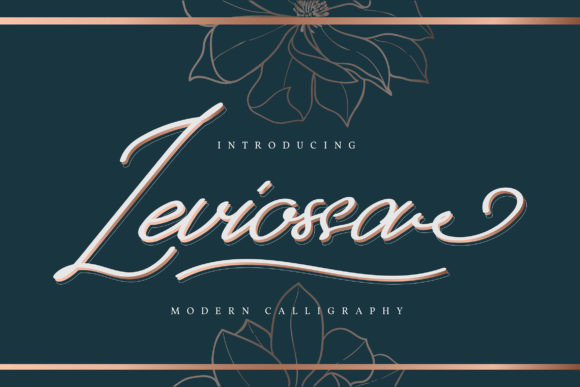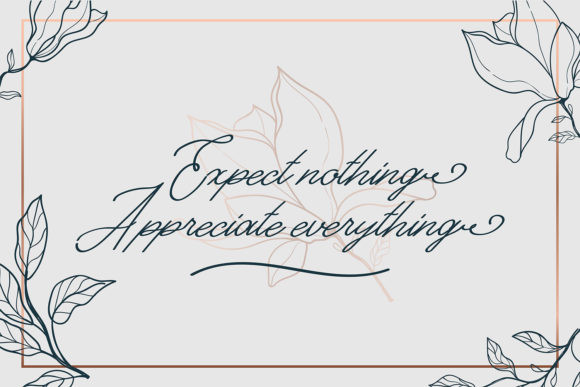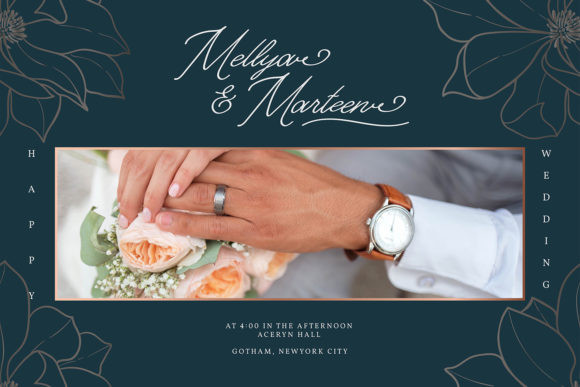
Leviossa Font
Leviossa FontLeviossa is an enchanting handwritten font. This versatile script font has a wide spectrum of applications ranging from greeting cards to headlines and is guaranteed to add a romantic feel to your next project.